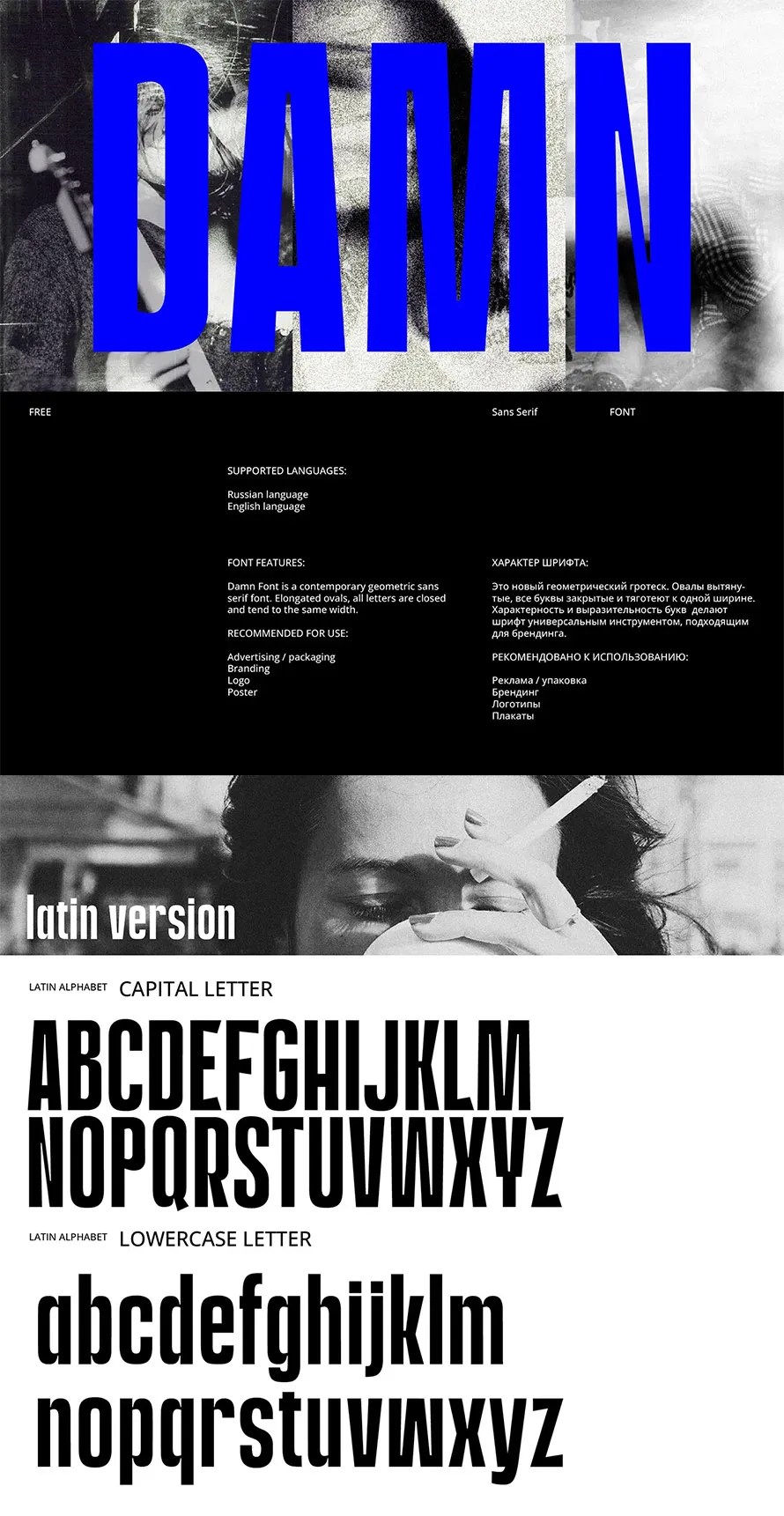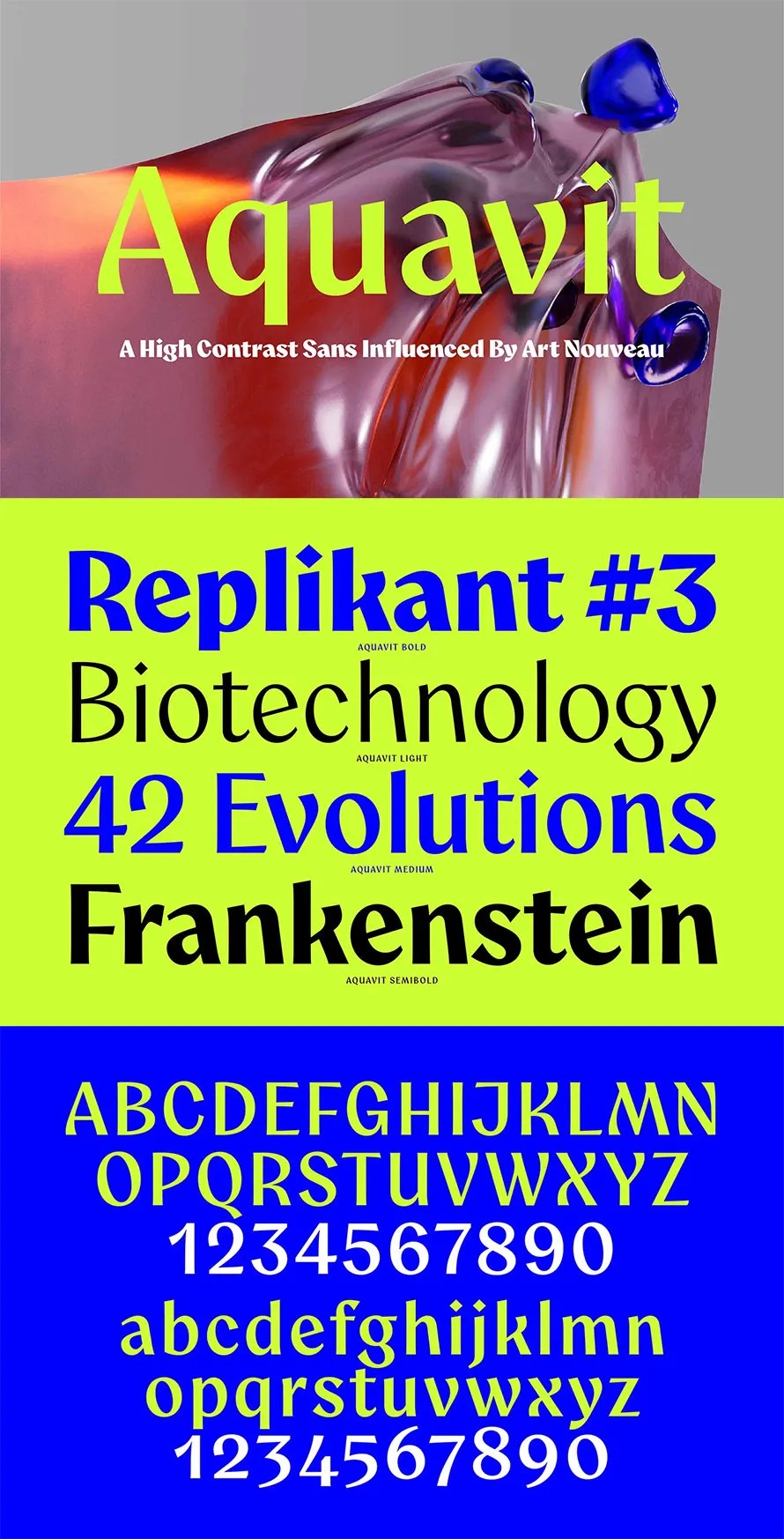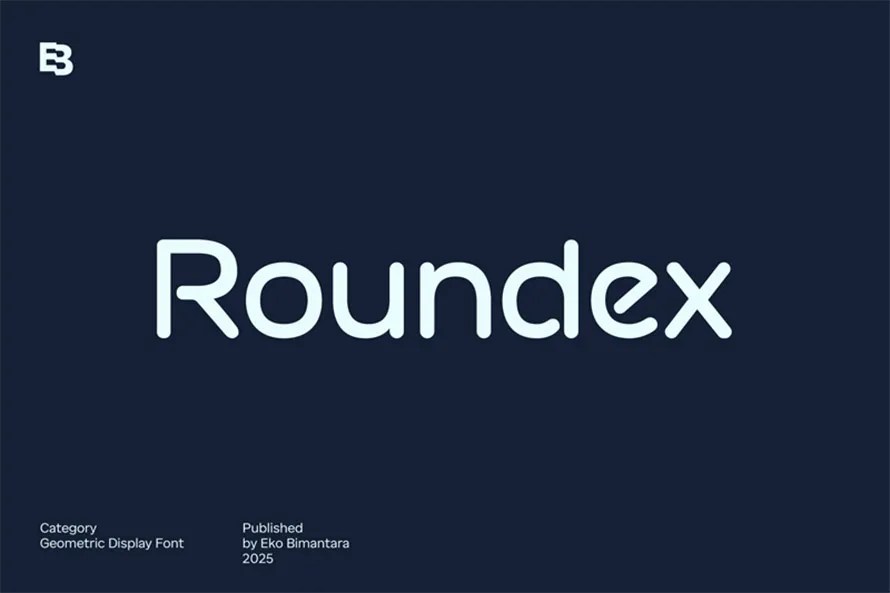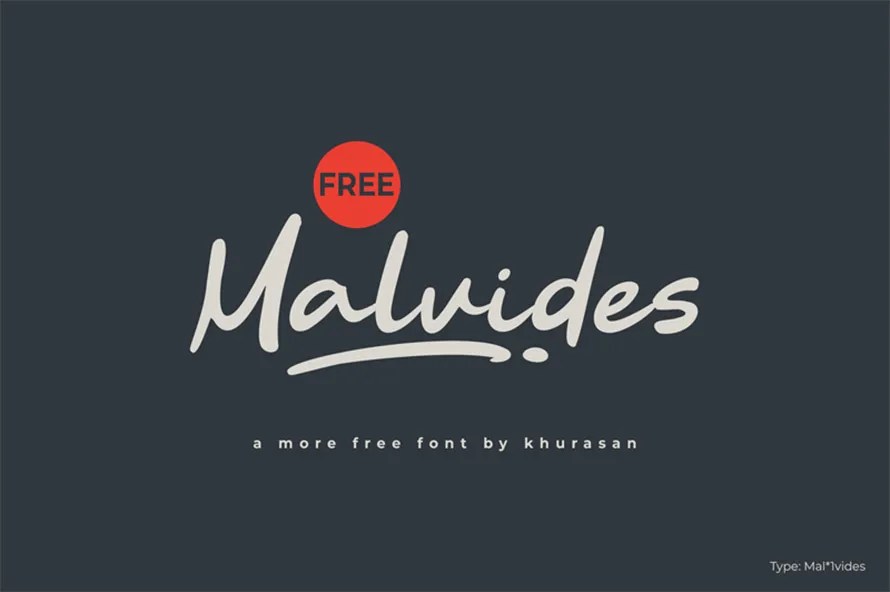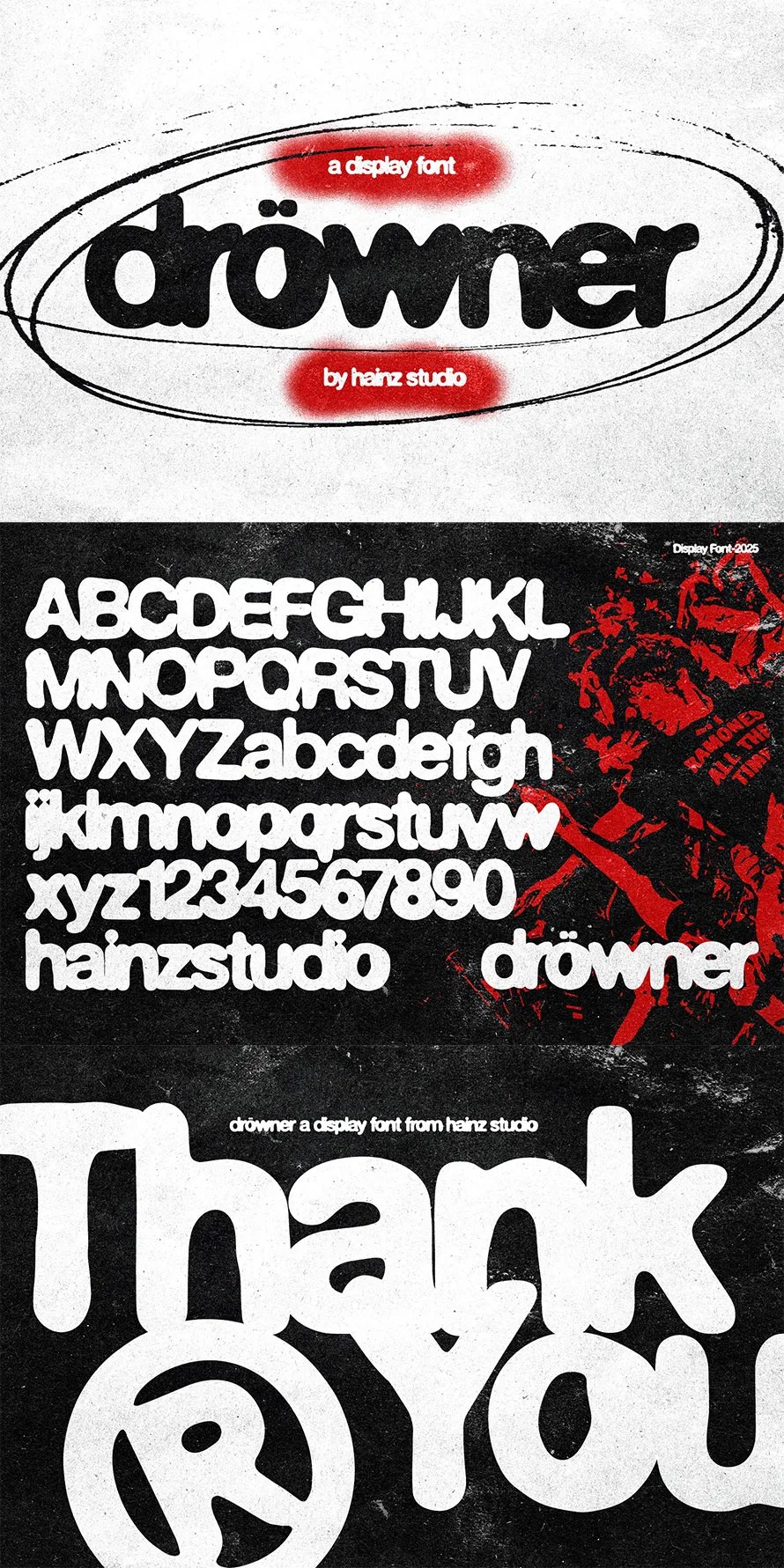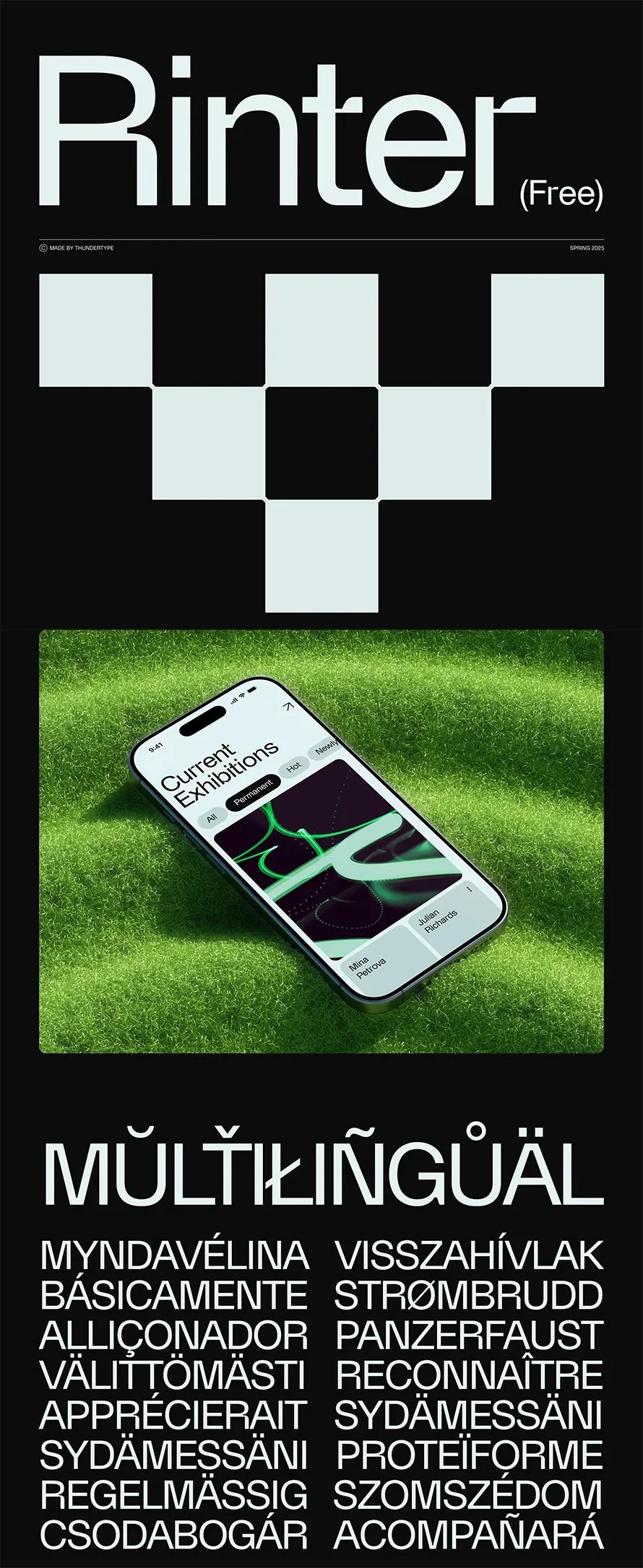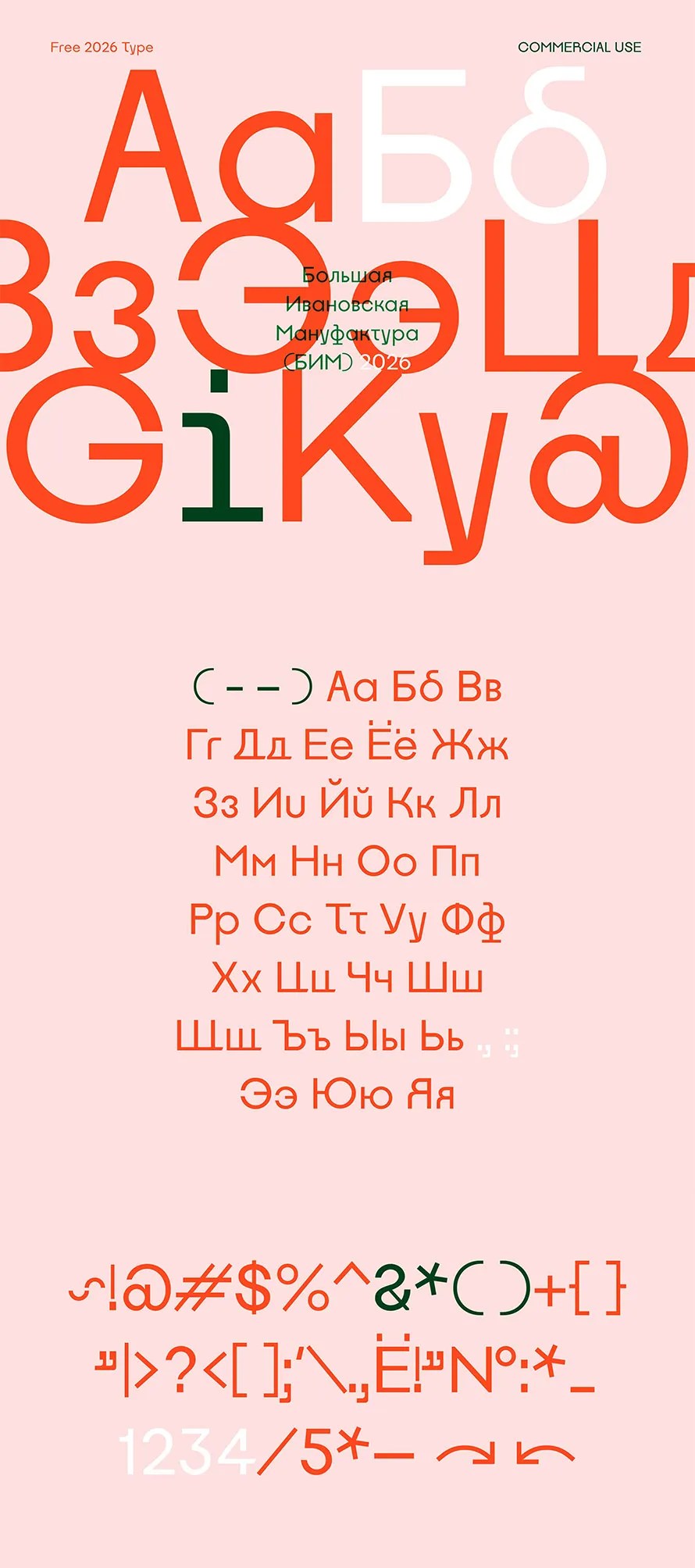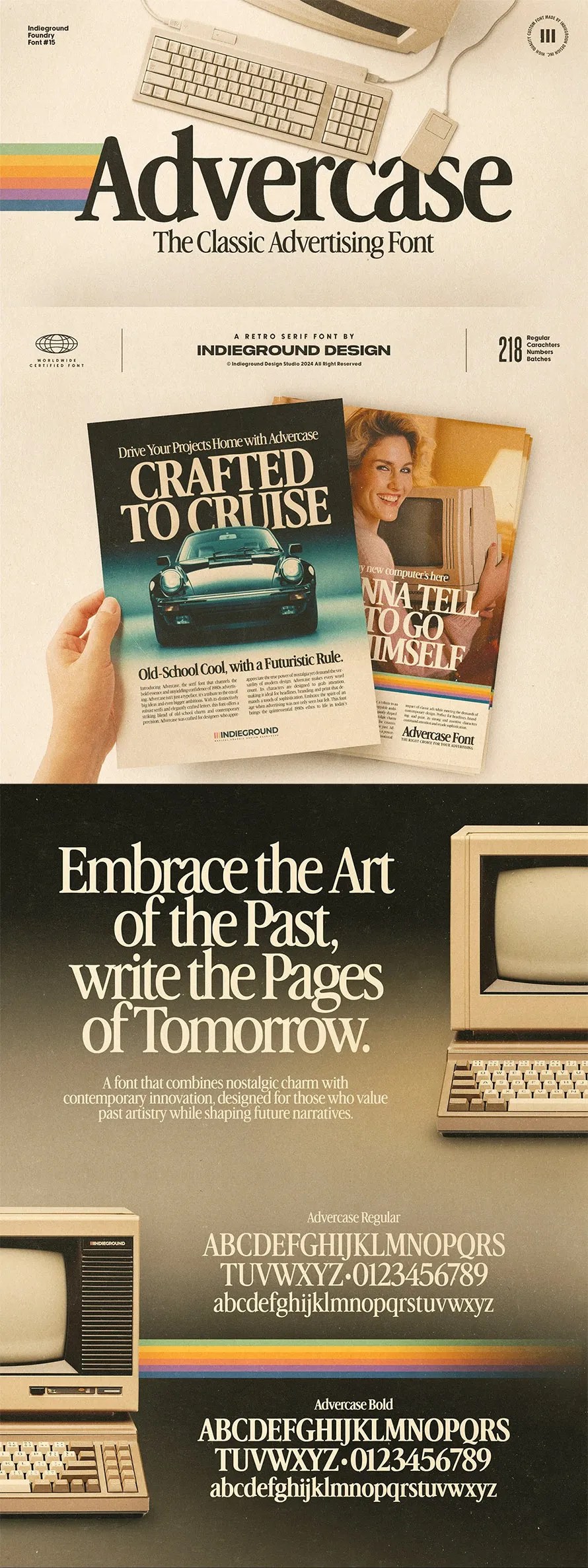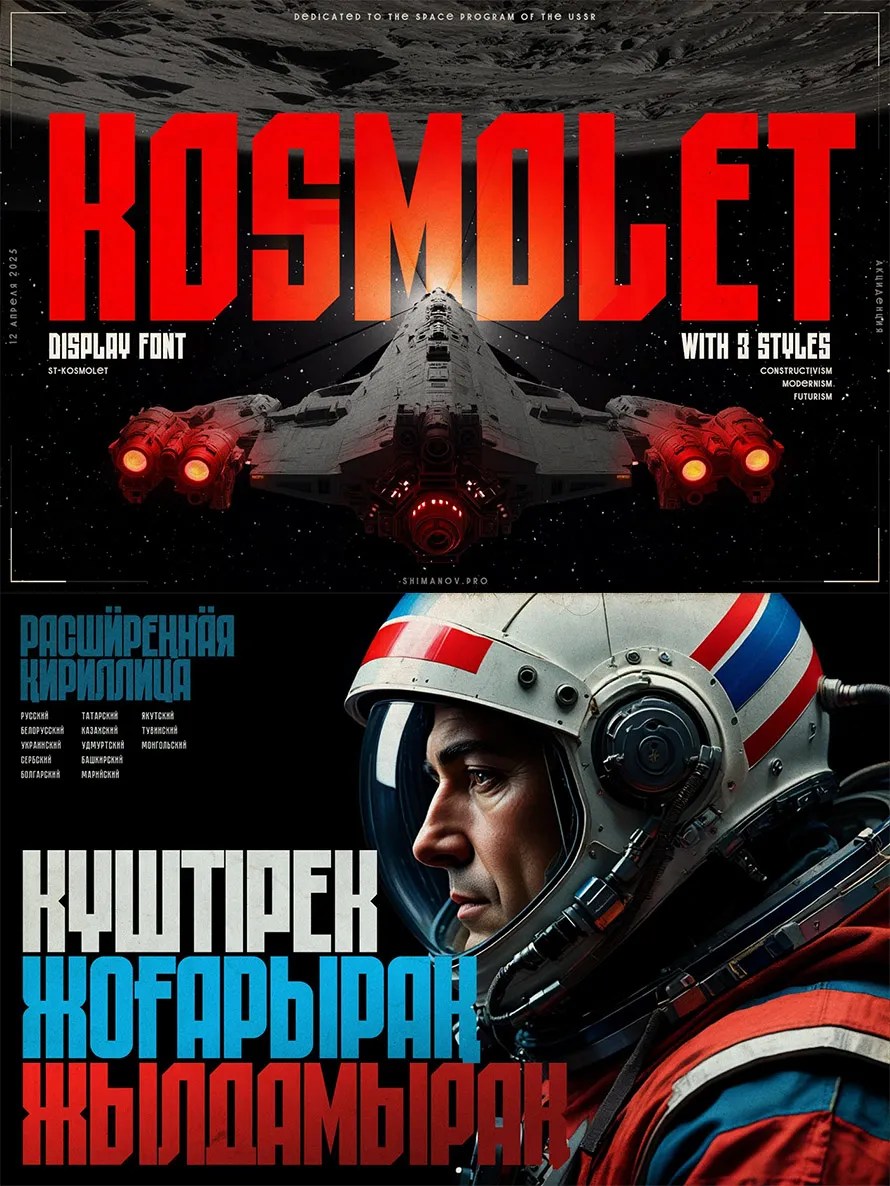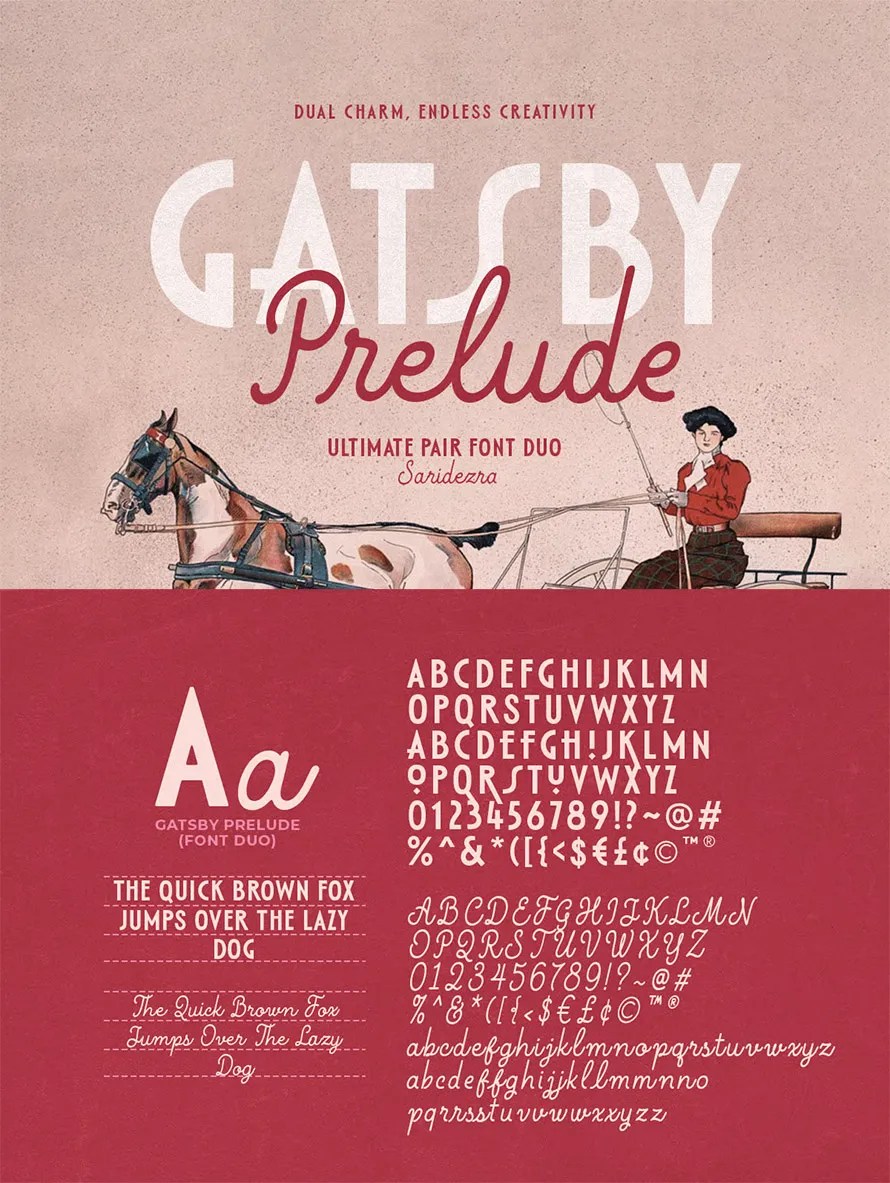
Poster visuals depend heavily on typography, and the right poster font can instantly transform a simple layout into a striking design. Bold letterforms, sharp contrasts, and expressive styles help capture attention from a distance, making your message stand out in busy environments. Whether you’re designing event posters, promotional graphics, or creative artwork, choosing the right typeface is essential for delivering clear, powerful visuals.
Today, designers can explore a wide range of free and premium poster fonts to match any creative direction. Free poster fonts are great for quick projects, offering accessible styles that work well for minimal layouts or experimental concepts.
Premium options, on the other hand, provide more refined detailing and unique characters, helping your posters look polished and professional. Both choices give you the flexibility to match your visual tone—modern, vintage, bold, or artistic.
Free & Premium Poster Fonts for Powerful Visuals
If you want to give your poster real impact, start by downloading fonts that bring energy and style to your design. Strong display typefaces, condensed letterforms, and expressive headline fonts can immediately give your poster a new life. With the right combination of visuals and typography, your message becomes not only readable but memorable. Whether you pick free or premium poster fonts, the goal is the same: elevate your design and create visuals that truly stand out.
List of Free Poster Fonts:
Hidrom Free Poster Font
HIDROM Free Display Font brings a bold, contemporary style with sharp lines and strong presence.
Damn Free Condensed Poster Font
DAMN Free font is a bold, modern typeface designed to make statements with impact. Its strong lines and edgy style suit posters, branding, and digital art, offering creativity without cost.
Aquavit Poster Typeface
Aquavit Typeface blends modern elegance with clean, minimalist design, making it ideal for branding, packaging, and editorial projects.
Roundex Poster Font
Roundex Font offers smooth geometric curves that maintain clarity across print and digital applications.
Malvides Free Font
Malvides is a free modern script font with smooth, flowing strokes and a stylish handwritten touch.
Drowner Display Poster Font
This font is a bold and expressive typeface with a textured, distressed appearance, perfect for projects that demand a raw and edgy aesthetic.
Rinter Free Font
Rinter Free Font is a sleek, contemporary typeface designed for versatility and elegance.
Bim Free Font
BIM Free Font is a modern, minimalist typeface with sharp edges and clean structure.
Advercase 90s Style Free Poster Font
Advercase is your new go-to typeface for that authentic retro look in your artwork. It’s perfect for creating eye-catching typographic artwork, and works great as a web font for online projects.
St-kosmolet Free Font
ST-KOSMOLET Free Font is a futuristic, space-inspired typeface with bold lines and geometric precision. Ideal for posters, branding, and digital projects, it delivers innovation, readability, and a modern aesthetic that makes designs visually striking and unique.
List of Premium Poster Fonts:
Gatsby Prelude – Art Deco Font Duo
Gatsby Prelude is a tall font duo with art deco sans and monoline script. You can use this font duo for any purposes from logotype to wedding invitations. This font also great for branding and quotes.
Superfly Brush Poster Font
SuperFly combines attractive curves with a fresh urban edge; delivering a stylish script which is guaranteed to add an eye-catching appeal to your logo designs, brand imagery, handwritten quotes, product packaging & social media posts.
Blinte – Doublestruck Serif Poster Font
Blinte is a captivating modern double-struck marker font that radiates creativity and charm. Its distinct design features bold, outlined letterforms with diagonal hatch fills, giving it a hand-drawn yet polished appearance.
Paquero Gometric Sans Font Family
Paquero is a contemporary geometric sans font family in 18 styles. Strong geometric characters combine with sharp modern cuts, resulting in a strong font with a distinctive personality.
Corpta Futuristic Modern Tech Poster Font
Corpta is a futuristic tech-inspired display font designed for innovation-driven projects. With its sleek and modern letterforms, it captures the essence of cutting-edge technology, cyber aesthetics, and forward-thinking design.
Kepler Bold Poster Font
Kepler is a powerful bold display typeface crafted to make your brand stand out with confidence. Designed for impactful headlines, striking logos, modern posters, and bold advertising,
Bigboi Stomse Western Vintage Font
BigBoi Stomse is a western-vintage display font inspired by old cowboy posters, sheriff badges, and rugged frontier landscapes.
Thio Filmen – Movie Poster Display Font
Thio Filmen – Movie Display brings bold cinematic energy inspired by the world of modern movie posters and action film titles. Each letter is crafted to project drama and strength thick, expressive, and designed to capture attention instantly.
Terra Craft Rustic Serif & Script Poster Font
Terra Craft is a handcrafted font duo combining a bold rustic serif with a flowing script. It delivers a natural, organic, and vintage-inspired aesthetic perfect for artisan branding and crafted design projects.
Monci – Fancy Display Font For Poster Design
Monci is a distinctive display typeface that combines bold geometric shapes with an expressive, irregular structure, resulting in a truly unique visual identity.
Vorge Bold Condensed Font
Vorge is modern bold condensed font, every single letters have been uniquely crafted. This font including beautiful alternate glyph. You can access the alternate glyph via Font Book (Mac user) or Windows Character Map (Windows user), I have been put the link tutorial inside the zip file.
Neocrash Cyberpunk Futuristic Font
Neocrash is a cutting edge cyberpunk futuristic font designed to bring a high-tech, digital vibe to your creative projects. With a sleek and bold appearance, it is perfect for sci-fi posters, gaming titles, tech branding, and modern UI design.
Maxine Display Poster Font
Maxine – Display Font. Meratus is a futuristic display font, This type of font is very suitable for your various needs such as branding projects, logos, social media posts, advertisements, labels, product packaging, photography, wedding designs, watermarks, invitation product designs, stationery, and any project.